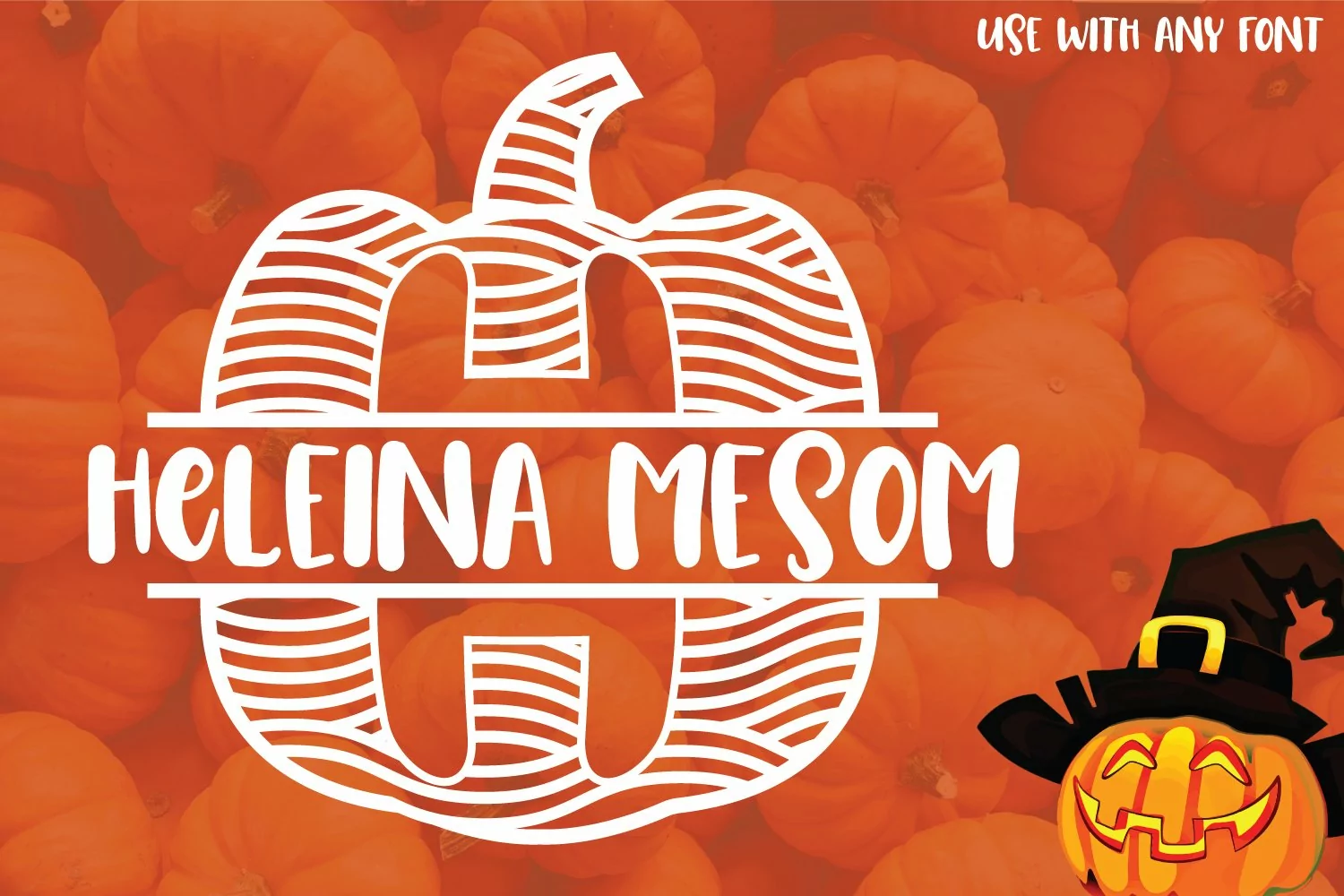
Presenting Cute font for you. Pumpkin Monogram Font for Halloween can be used in tons of projects specially for child and new born projects. You can use it for craft purpose and this will looks great on shirts, printing material and other stuff.
2- UPPER Case only Letters A to Z and 0 to 9
3- Super Cute and Creative
PumpkinMonogram